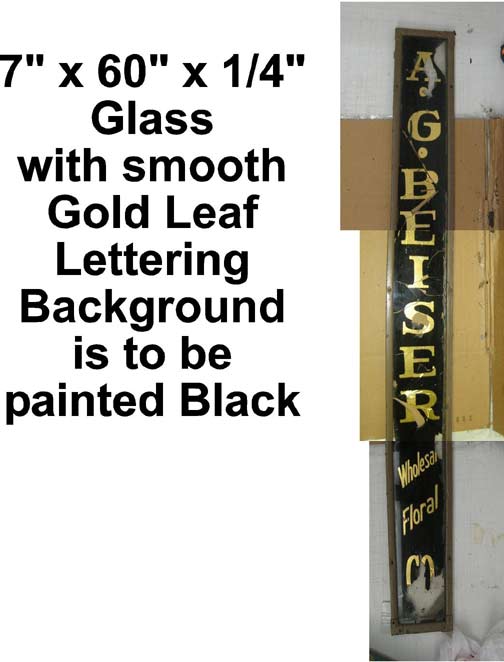
I have a customer that is in the sign business in Missouri--Zip Code 63010 who requires a Glass Gilder to restore a piece of glass for one of his customers. The glass measures about 7" X 60" for reference.
You might want to be more specific. Is the glass mounted in a place that requires the sign artist to have to go there? Can it be done in a studio? Are they willing to drive it to someone? Can they take photos of the piece (and post it here) so someone could have an idea of the amount and caliber of work being required? Are they willing to spend the money to have it done right?
With regards to my previous post, the sign company has responded back with the following information:
Here is a picture along with the dimensions for the sign.
I could supply the glass but I doubt it would be feasible for me to do so unless we find a guilder near St. Louis so I am thinking that the guilder would need to supply the glass.
My client is looking for a quality piece so I would like this piece to be someone's best work.
If anyone would like to give me an option for a simple metal frame around this piece I would consider that also.
The gold leaf lettering is very smooth with very little notice of any overlapping.
As far as shipping the old glass to them, I would rather do a full scale drawing and either send them that or I can send them an electronic file via e-mail and they can print it. I am able to send any file type the guilder would need.